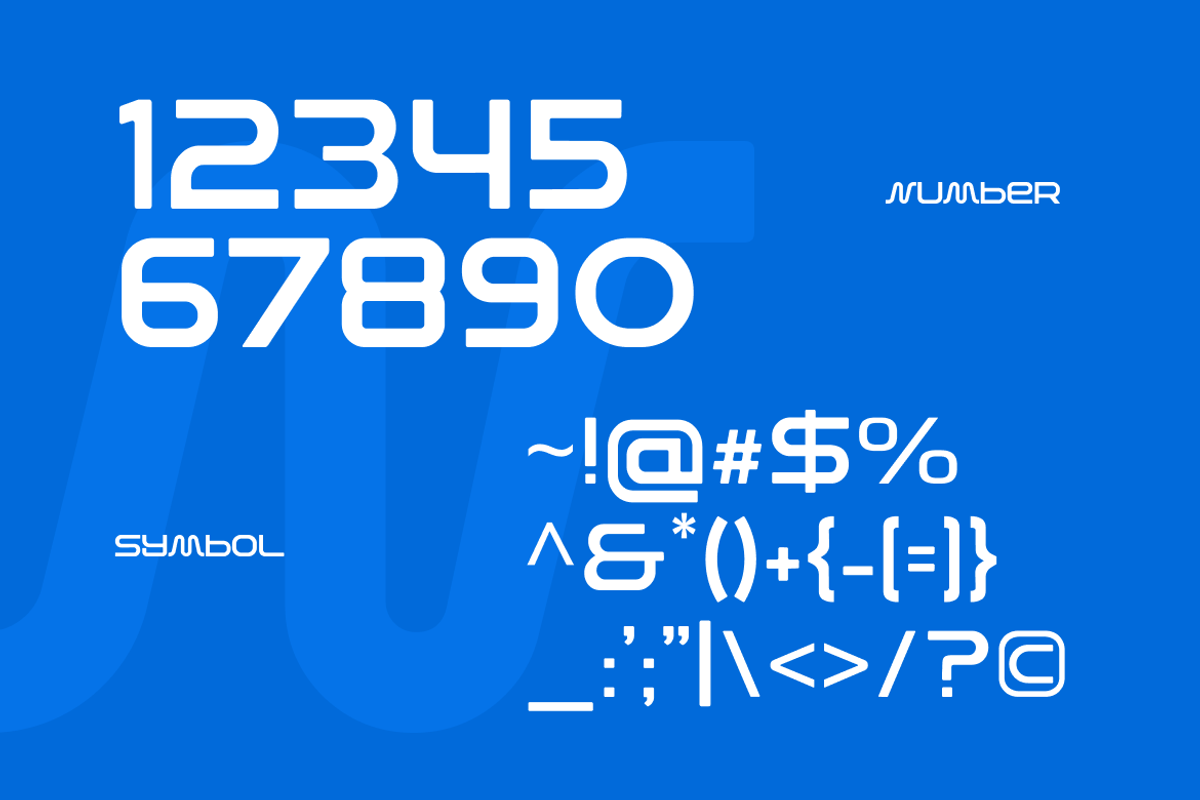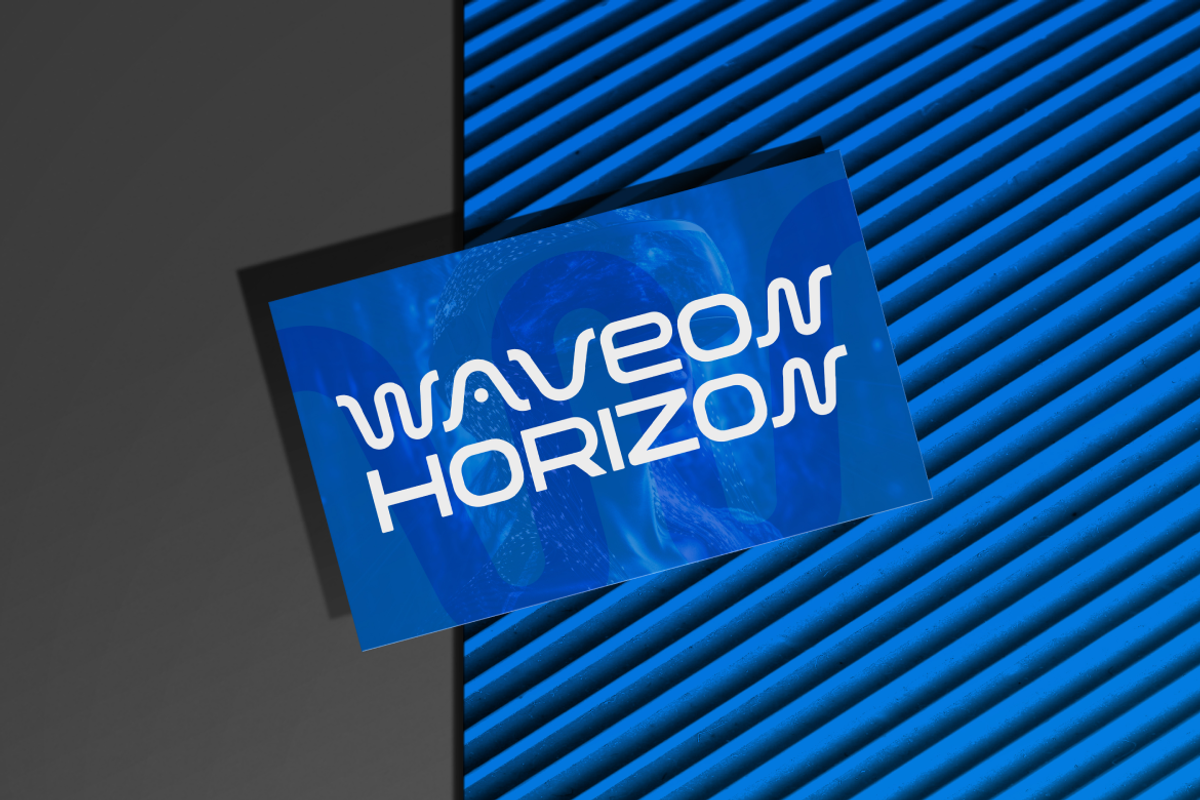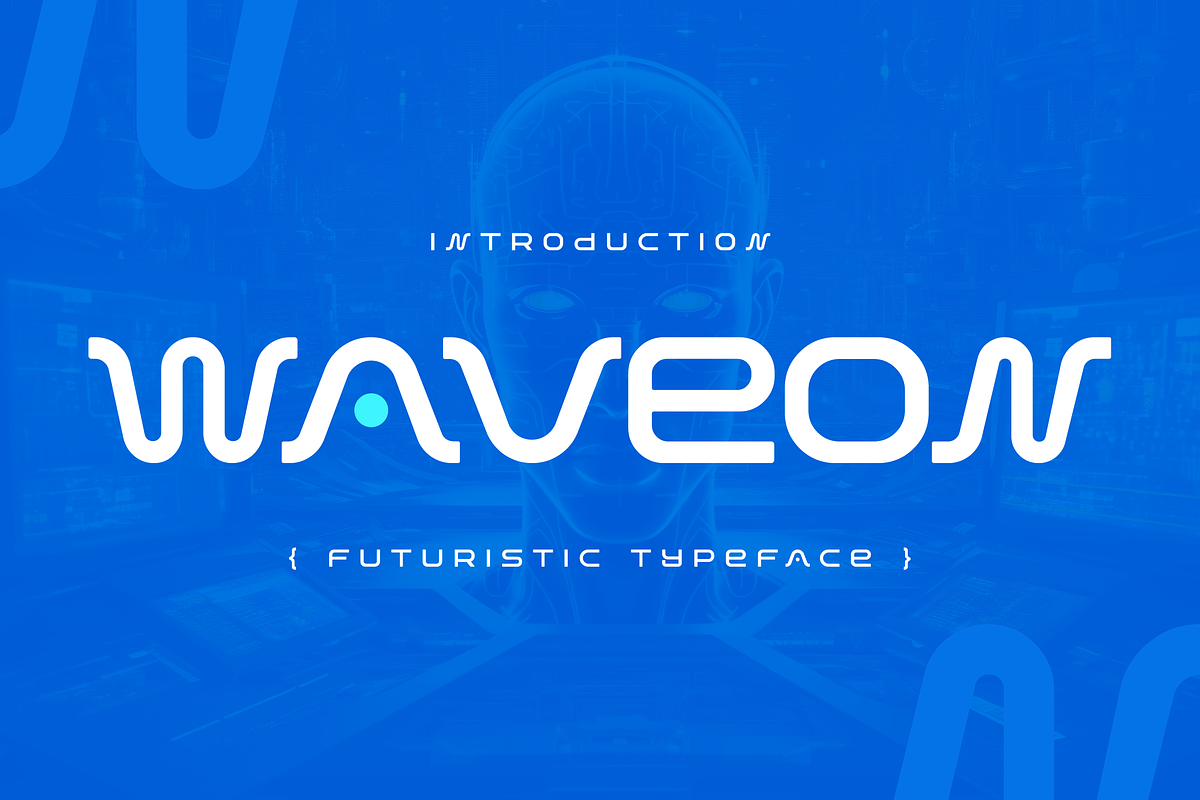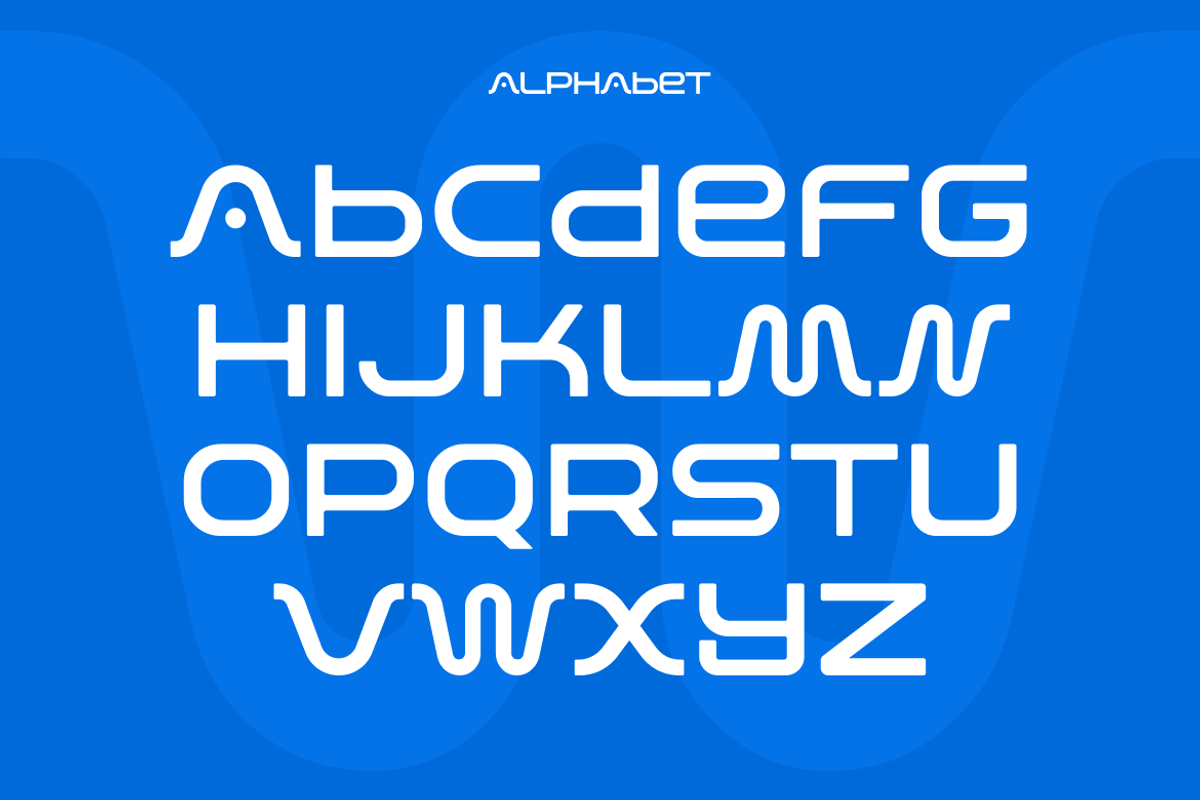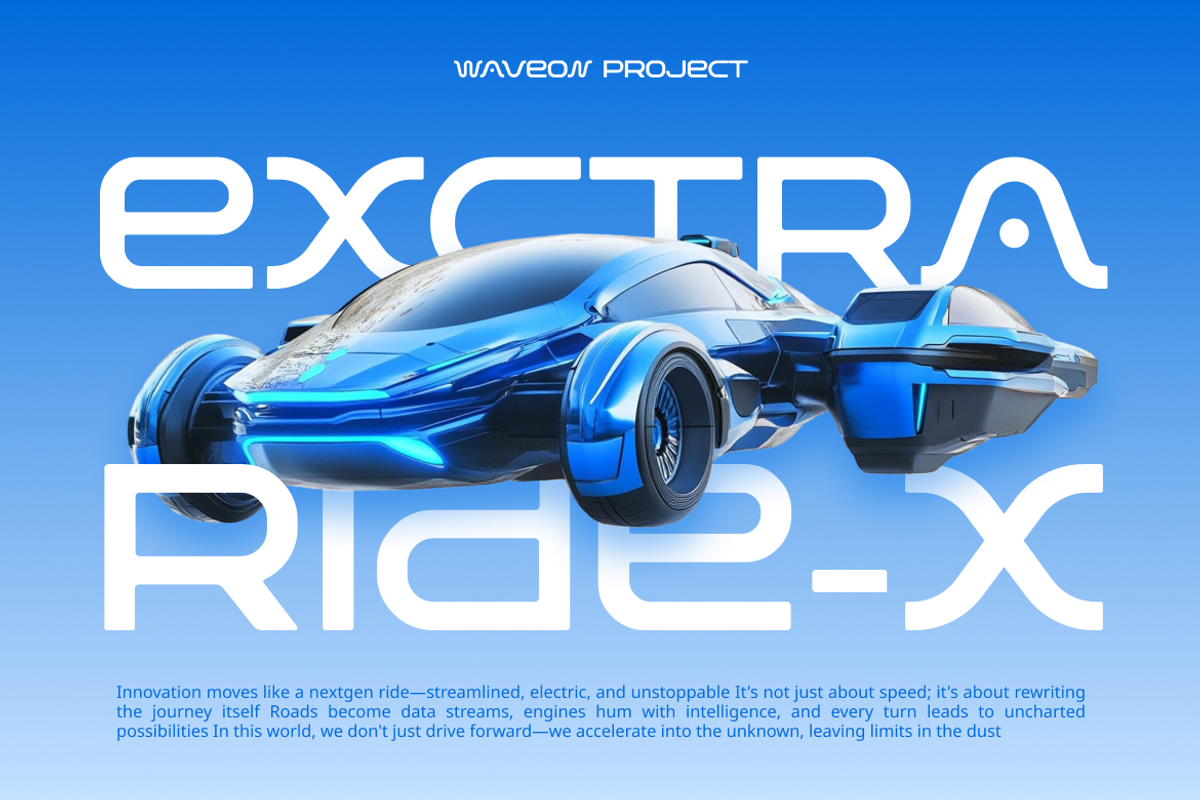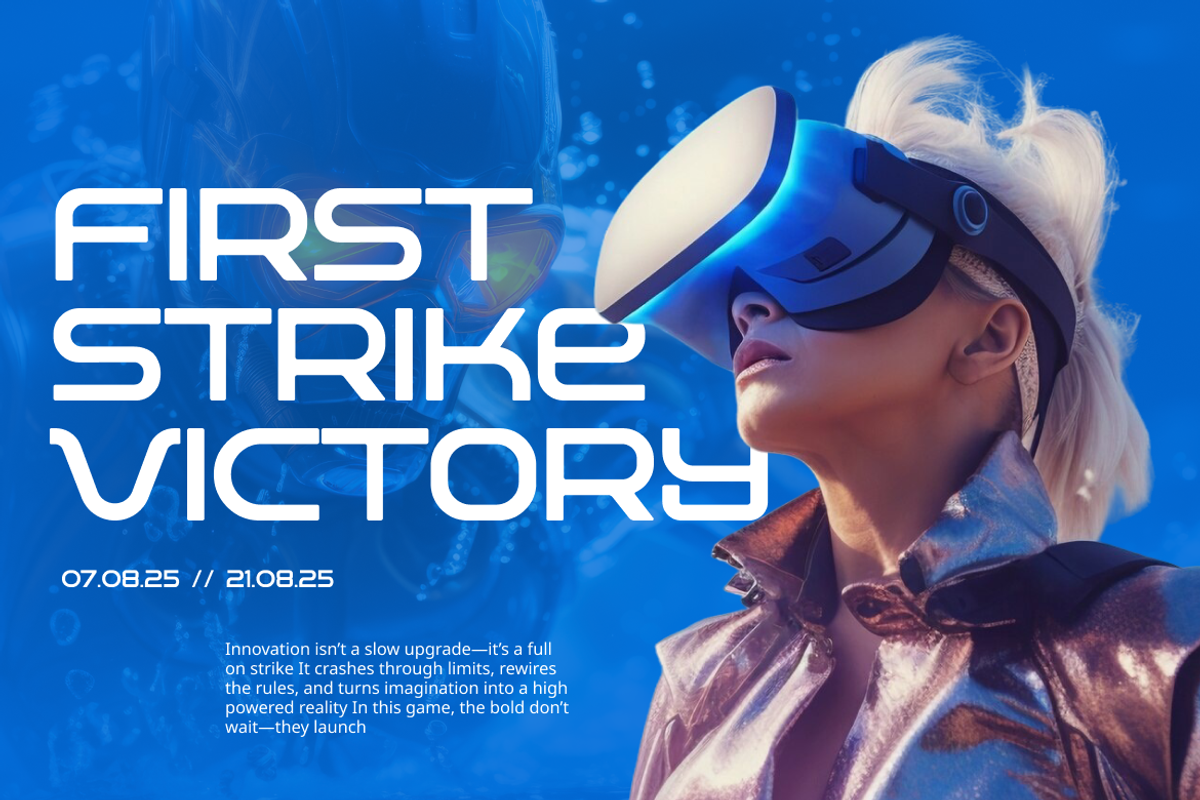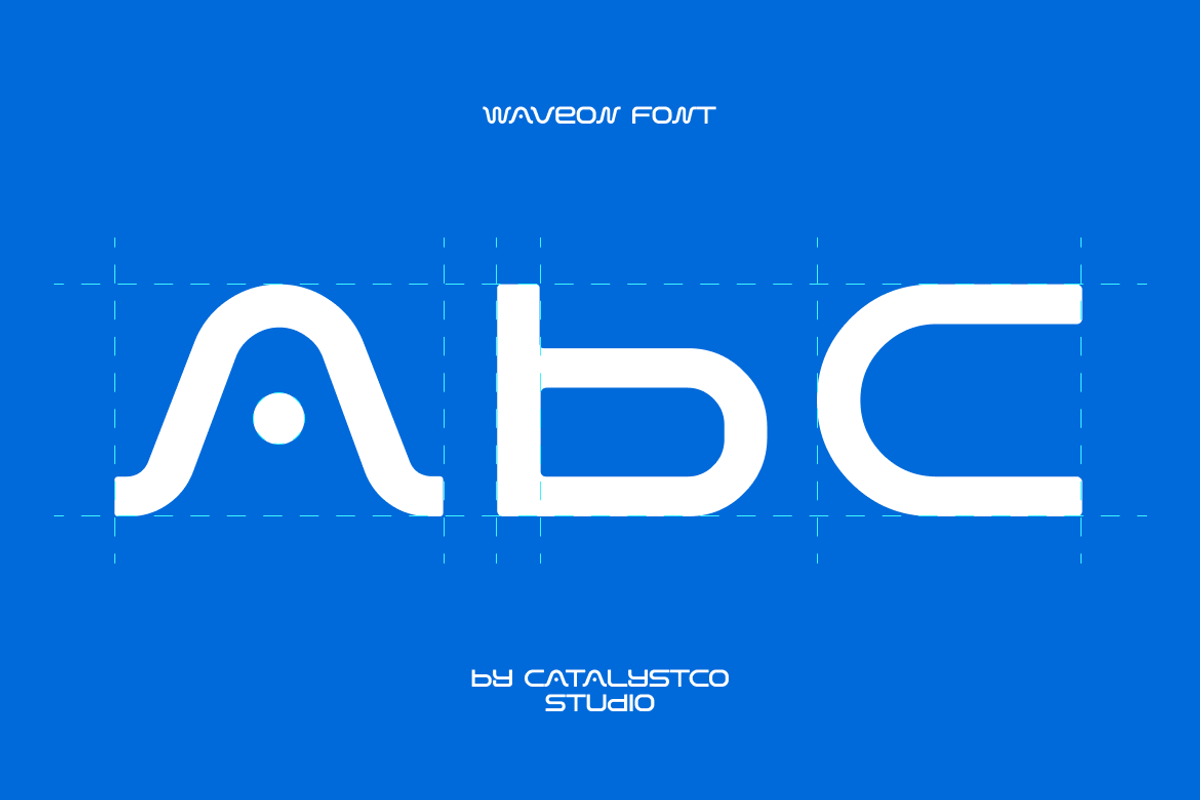
Waveon Futuristic Typeface Font
Waveon is a futuristic display typeface that combines geometric precision with sci-fi aesthetics. Featuring sleek, rounded forms and unique stylized strokes, this font is ideal for digital designs that demand a tech-forward look. The set includes uppercase, lowercase, numerals, symbols, and multilingual support, making it versatile for both display and branding purposes. Waveon is best used for high-tech branding, UI interfaces, space-themed posters, cyberpunk visuals, or gaming headlines.
Waveon is a perfect fit for projects in the tech industry, gaming, digital marketing, or any creative direction that leans toward futuristic or sci-fi aesthetics. Whether used in app interfaces, promotional posters, or brand visuals for AI products, Waveon provides a bold and forward-looking impression.
- Futuristic sans-serif letterforms with tech-inspired aesthetics
- Rounded corners combined with geometric modular shapes
- Consistent stroke weight and clean contours for modern clarity
- Unique detailing in letters like A, N, M to reinforce innovation
- Full uppercase and lowercase set with numerals and symbols
- Branding projects in technology and digital innovation sectors
- UI/UX design, dashboards, and web/mobile app interfaces
- Sci-fi posters, gaming titles, and conceptual cover art
- Futuristic product packaging and tech-related merchandise
- YouTube intros, streaming overlays, and modern logo design